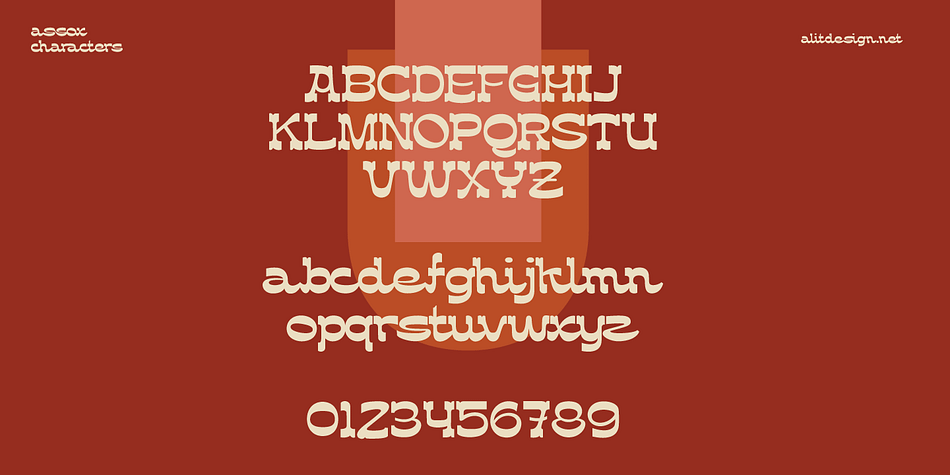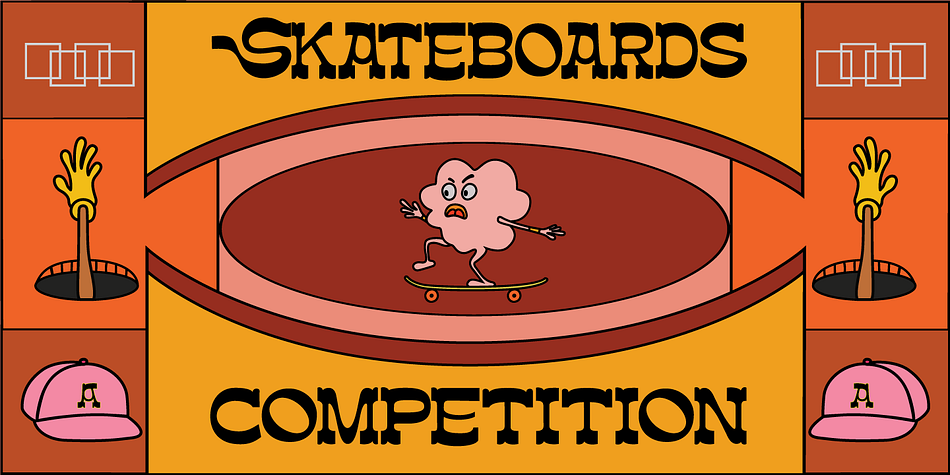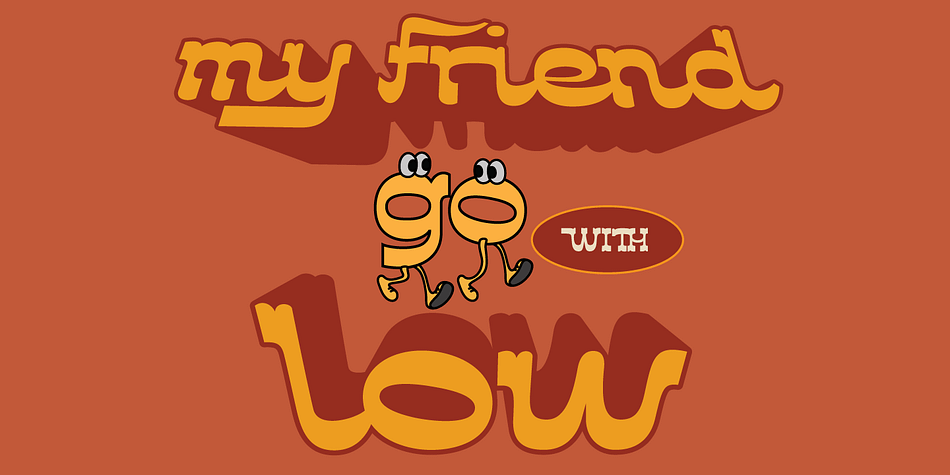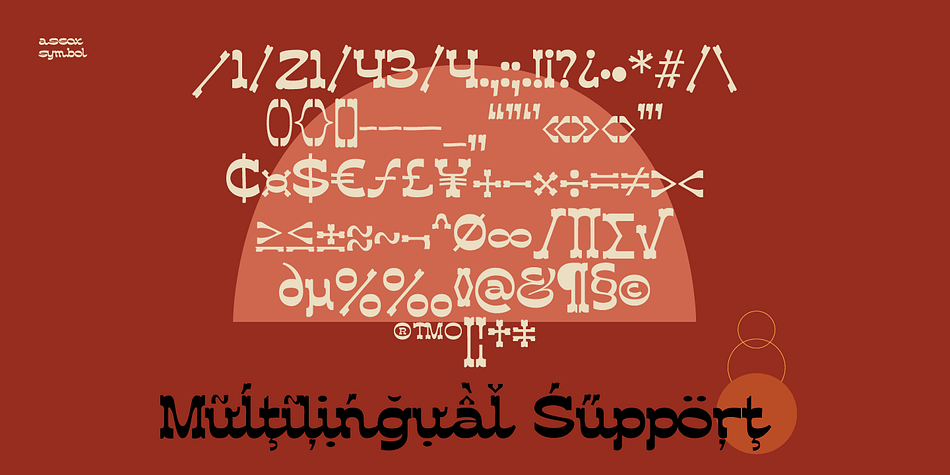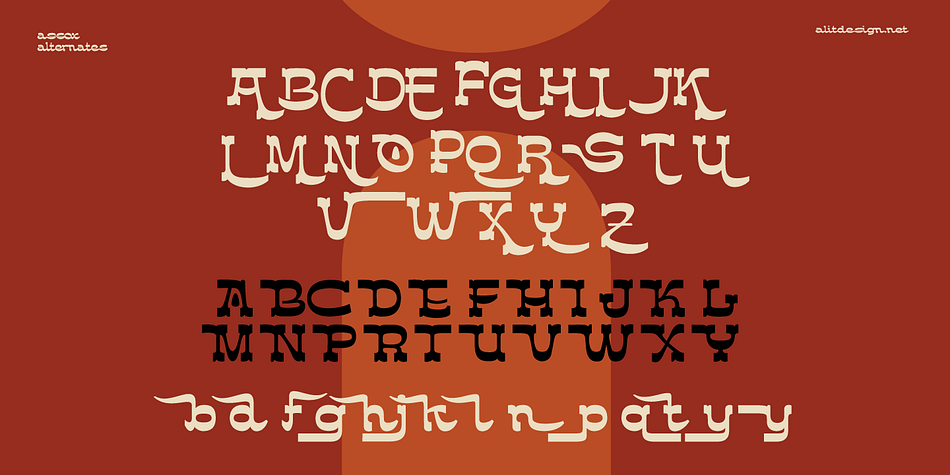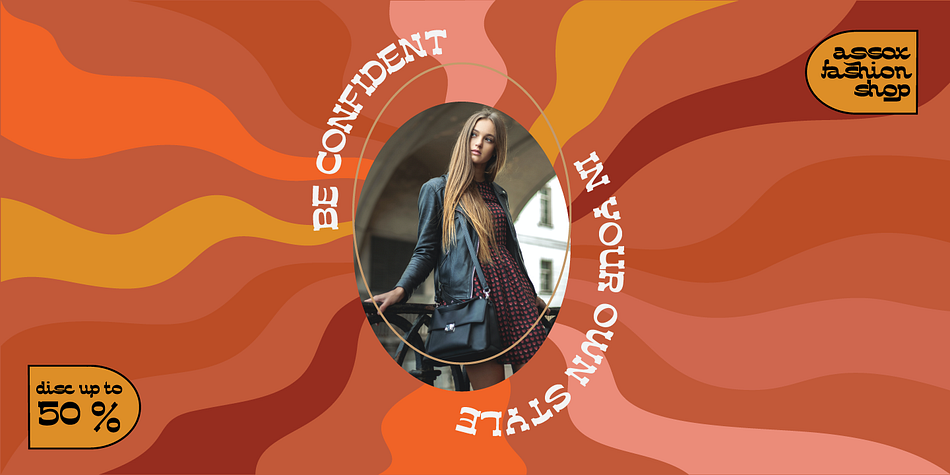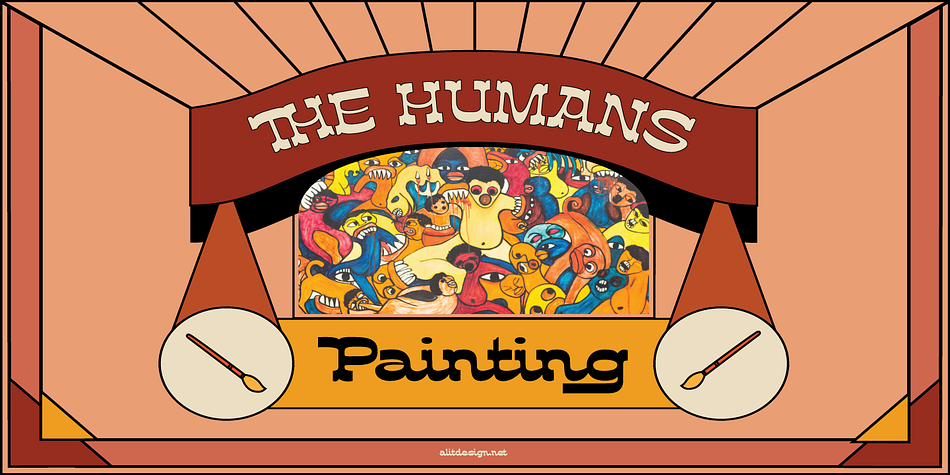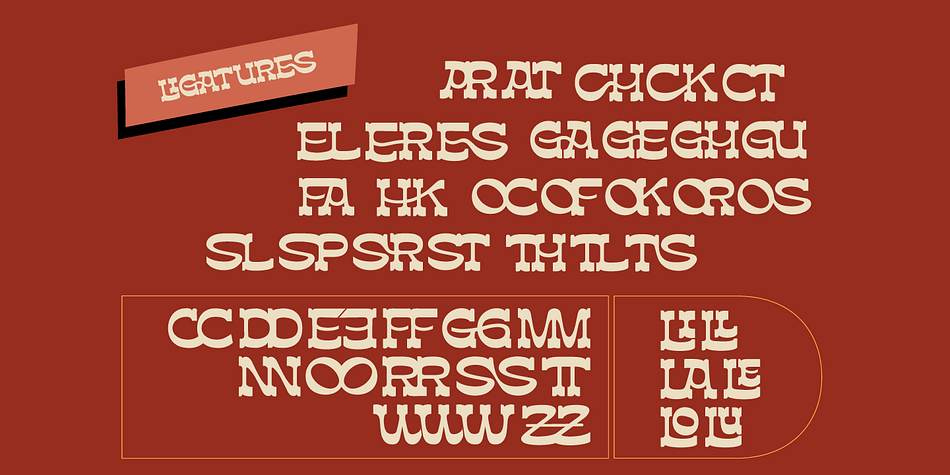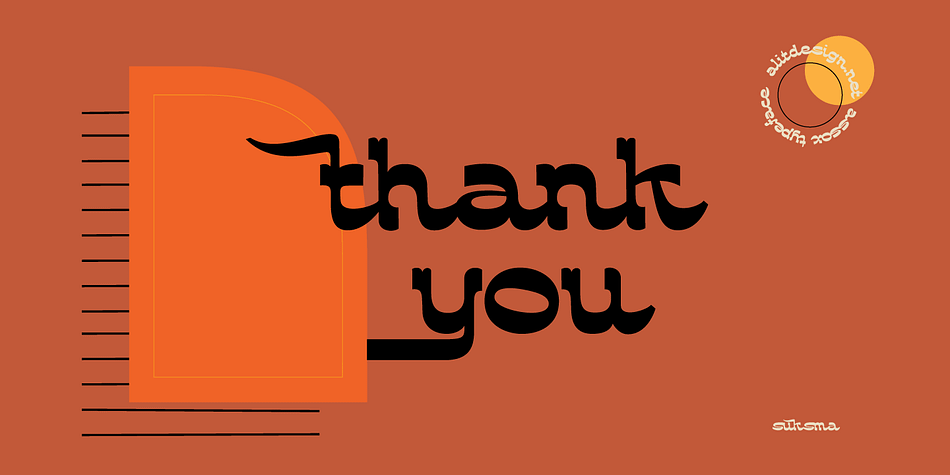
Designed by Alit Suarnegara, assox typeface is a display, display serif and western font published by Alit Design.
Introducing assox Typeface. This font is inspired by the design styles of the 70s. The style is funny, groovy, classic, not serious but has aesthetic and unique value, besides that the assox font is very easy to remember and becomes the image of a design.
assox is very good for being your font collection because this font is very unique and easy to apply to any media that has a design concept that is not so serious, groovy, classic, funny and unique.
Besides that, it can be used for the design of t-shirts, posters, sign boards, and social media needs.